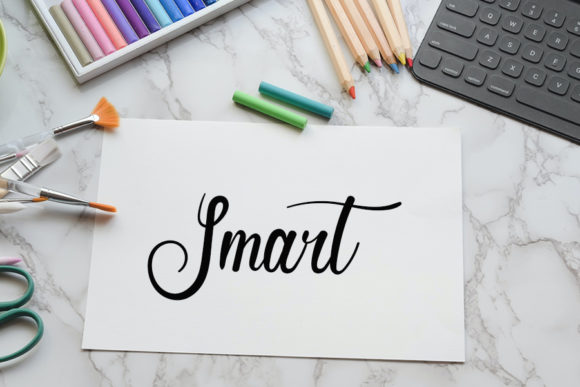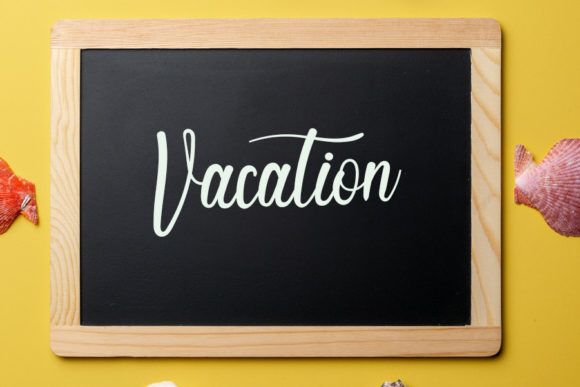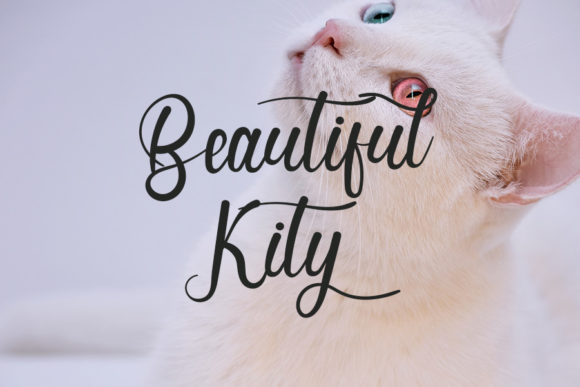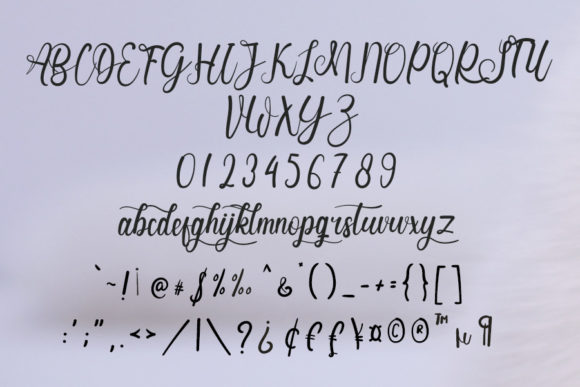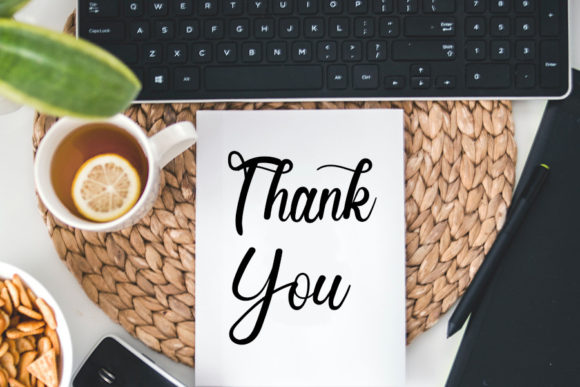
Introduction to Enjoyment Font
There’s something magical about creating a new design project, the blank canvas waiting for your imagination to bring it to life. The cursor blinks, and you start typing, watching your words transform into a beautiful, cohesive piece. But what elevates a project from good to great? For designers, the right font can make all the difference. That’s why we’re excited to introduce you to the Enjoyment Font, a stunning handwritten font that’s sure to elevate your creative projects.
With its modern vibe and spotless form, the Enjoyment Font is the perfect addition to any design resource. Its balanced and varied lines make it versatile and easy to use, whether you’re working on a project with a transparent background or a high-quality print piece.
In this article, we’ll delve into the world of the Enjoyment Font, exploring its features, benefits, and why it’s a valuable resource for designers looking to take their projects to the next level.
Key Features of Enjoyment Font
- High-quality design resource ideal for creative projects, offering a unique and playful style.
- Features a transparent background, allowing for easy layering and customization in your design projects.
- Perfect for use in logos, branding, and marketing materials, as well as digital projects like social media graphics and web design.
Honest Review: Enjoyment Font
As a designer, I’m always on the lookout for high-quality design resources to elevate my creative projects. The Enjoyment Font is a relatively new addition to the design scene, and I was curious to see how it would hold up. Let’s dive in!
- Unique Character Set: The Enjoyment Font boasts an extensive character set, including a wide range of symbols, emojis, and special characters.
- Smooth Typography: The font’s smooth lines and curves make it perfect for body text and headings alike.
- Transparent Background: The font’s transparent background makes it easy to use on images with busy backgrounds.
- Limited Customization: While the font is highly customizable, some users may find the limited options restrictive.
- Not Ideal for Small Text: The font’s design can make small text difficult to read, especially on low-resolution displays.
Overall, I was impressed with the Enjoyment Font’s quality and versatility. It’s a solid addition to any designer’s toolkit, especially for creative projects that require a touch of whimsy. While it may have some limitations, I believe it’s well worth the free download.
The Enjoyment Font is a free design resource that offers a high-quality, unique typography solution for your creative project. This font features a transparent background, making it an ideal choice for designers who want to add a touch of elegance to their designs.
Tips for Getting the Most Out of Enjoyment Font
Use the Enjoyment Font in combination with other design elements such as images and graphics to create a visually appealing design. Experiment with different font sizes and styles to add emphasis to your text. Use the transparent background to create a sense of depth and dimension in your design.
The Enjoyment Font is ideal for use in creative projects such as social media graphics, blog posts, and marketing materials. It is also a great choice for designers who want to add a touch of elegance and sophistication to their designs.